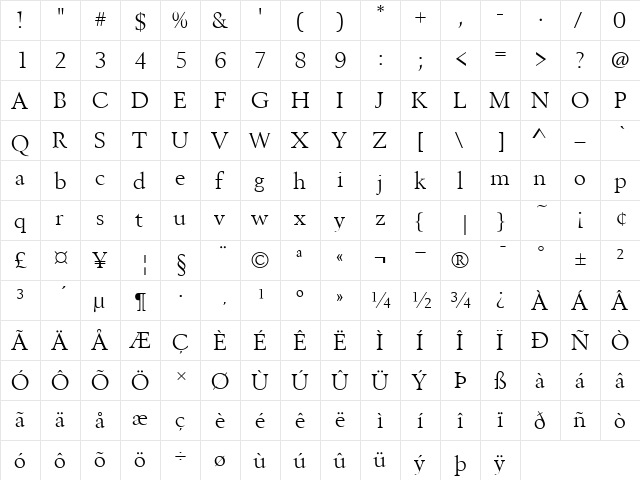
Berling T Regular Font Preview
Berling T Regular
Berling T Regular Font Details
Design Context for Berling T Typeface
Berling T takes a measured approach to typography — its balanced proportions and neutral character make it a reliable workhorse for both digital and print work.